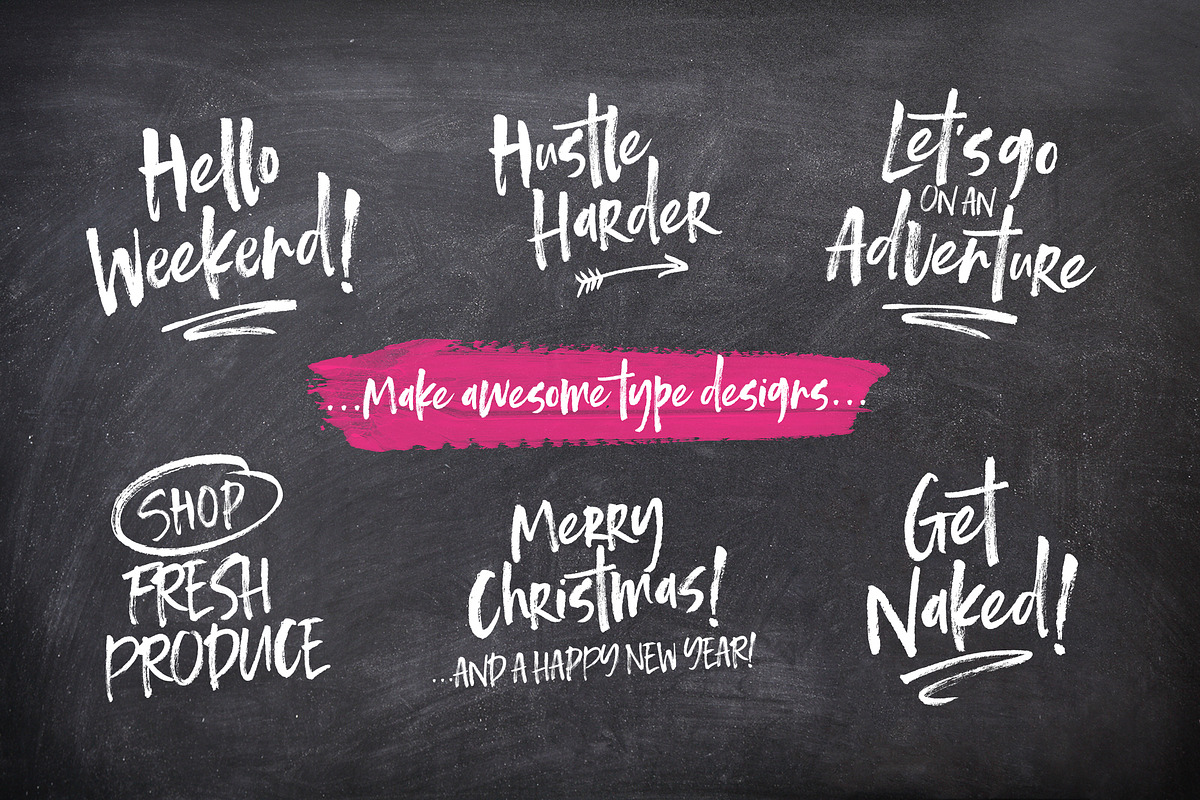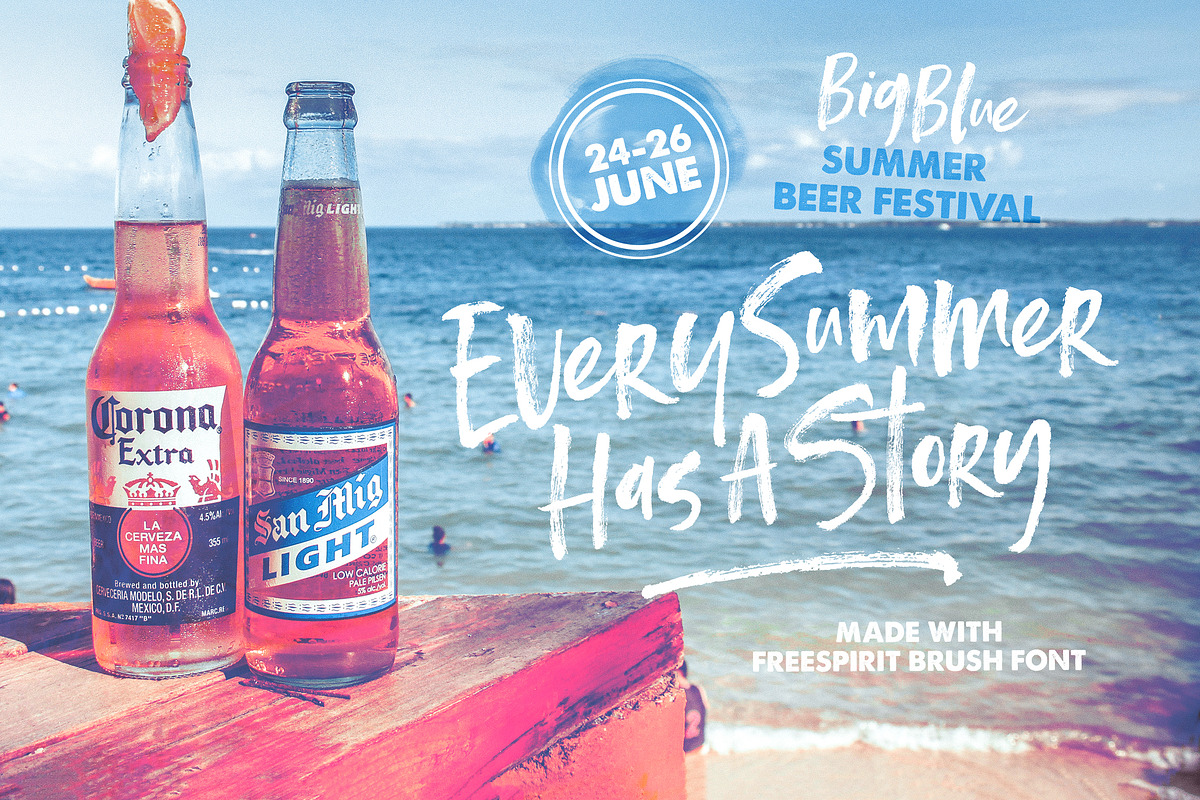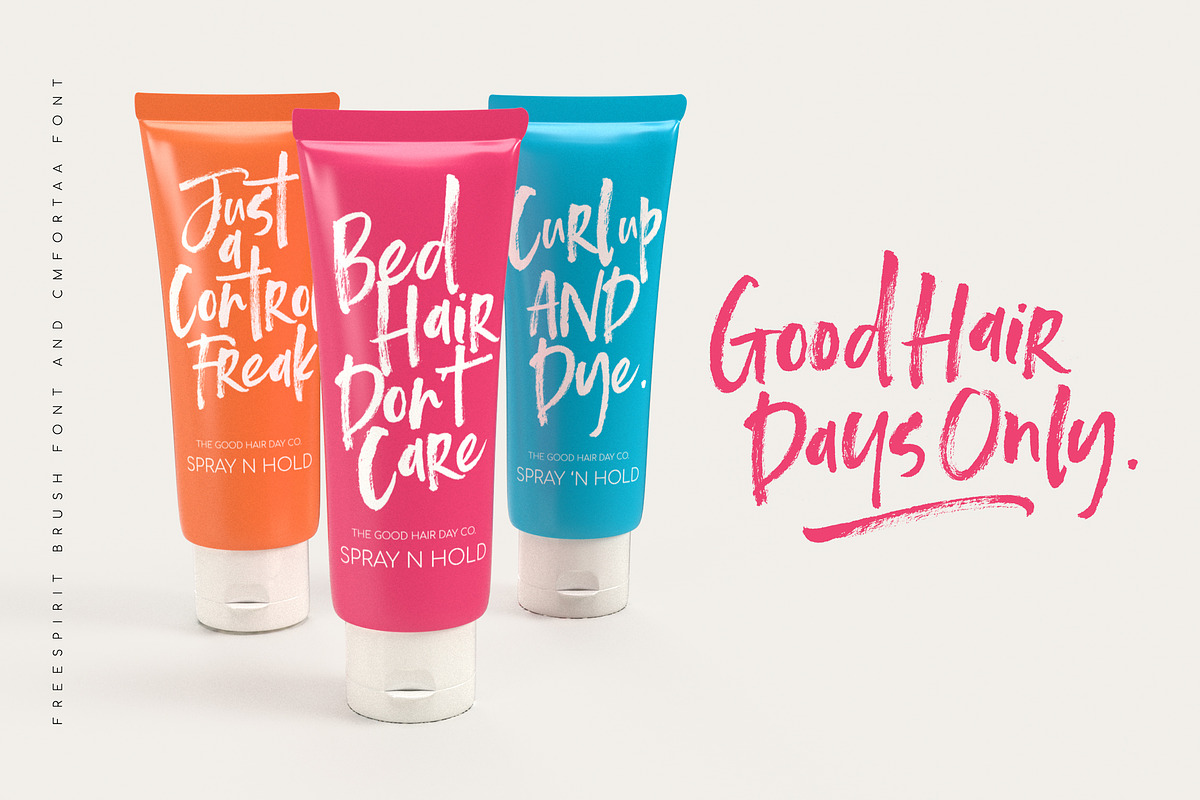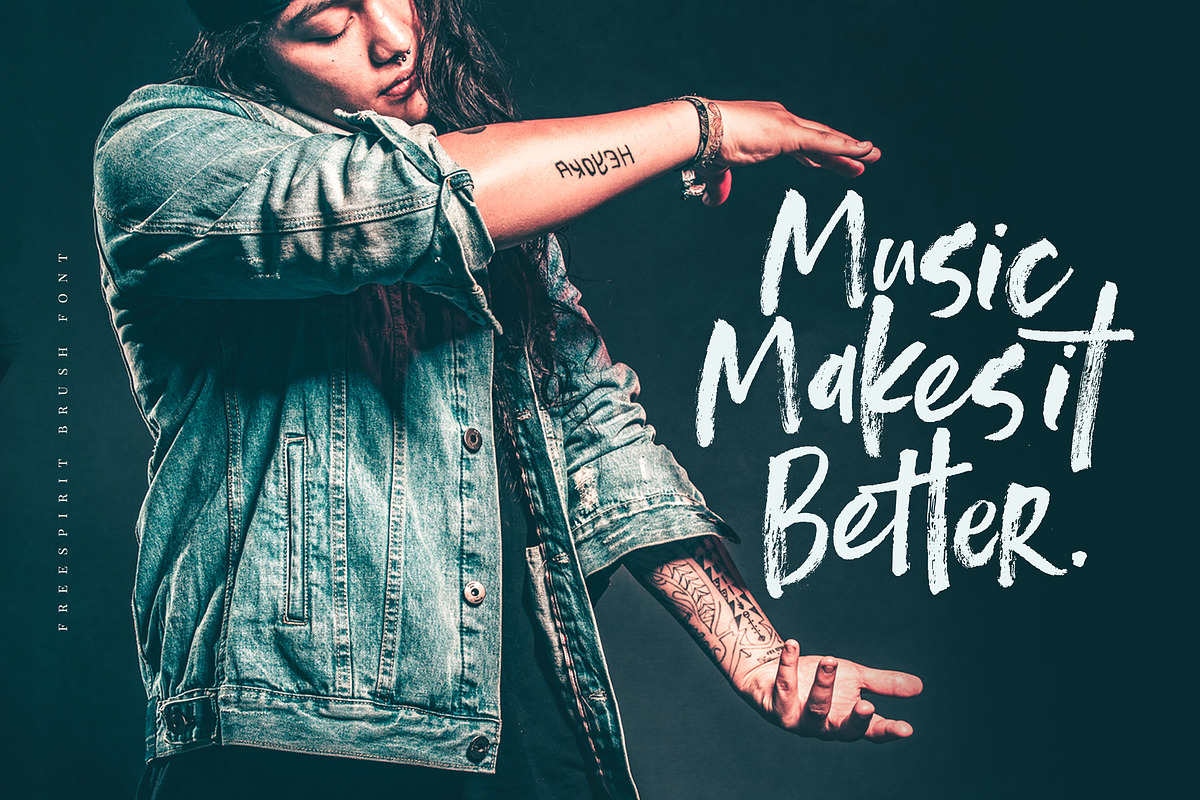
Freespirit Brush Fonts
Turn up the Punchy Fun Factor with'Freespirit Brush Font'. With a highly detailed dry brush texture, and a messy baseline, this font is perfect for effortlessly making that outrageously bold statement in your design projects.
Freespirit Brush Font consists of two fonts - allowing you to interchange any letters and have flexibility in how you want your design to look.
To add even more punch, you get a Freespirit Brush Extras font, jam packed with matching swashes, and shapes to really give your design that custom made look.
Perfect for Branding, logos, packaging design,poster art, magazines, adverts, greetings and so much more - the list is really endless.
Go ahead and get LOUD, with Freespirit Brush Fonts :)
Freespirit Brush Fonts by Nicky Laatz fits naturally into Branding, posters, packaging, typography.